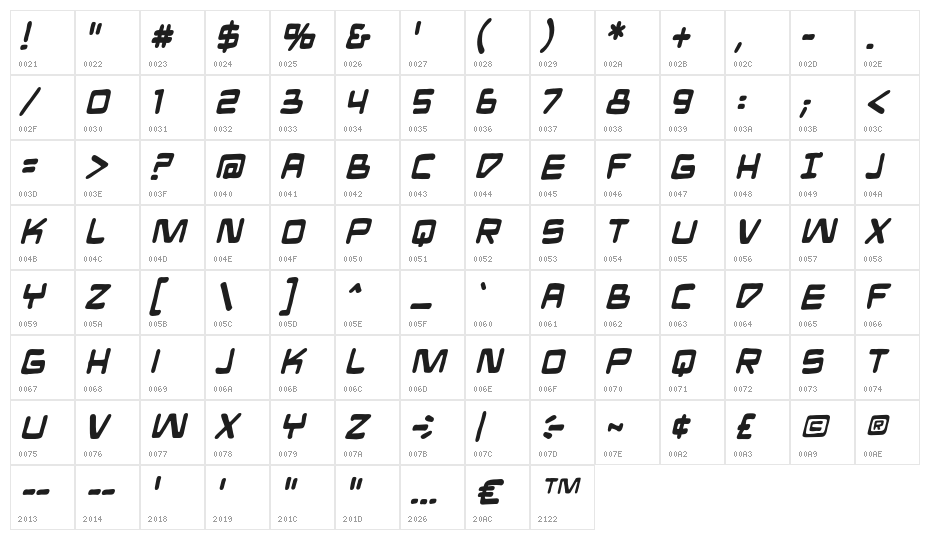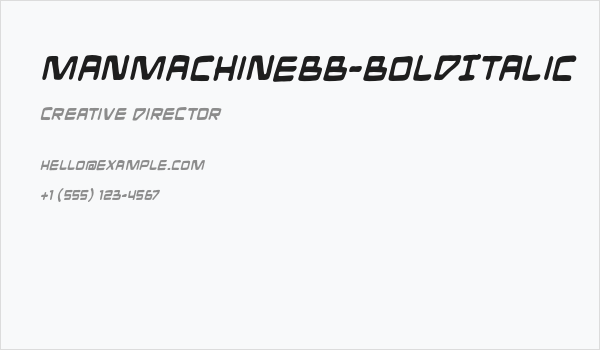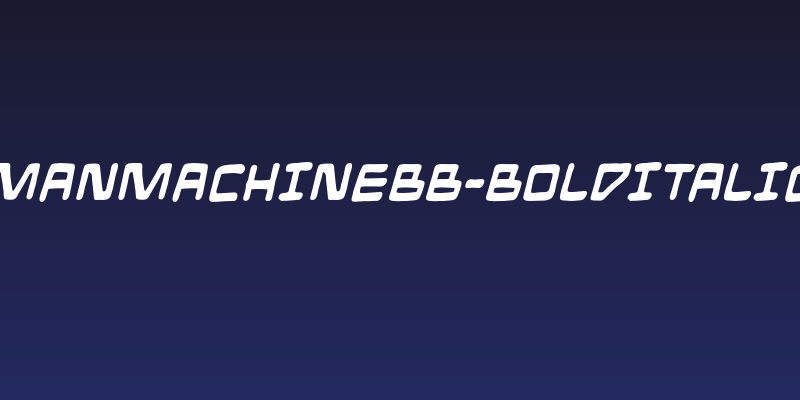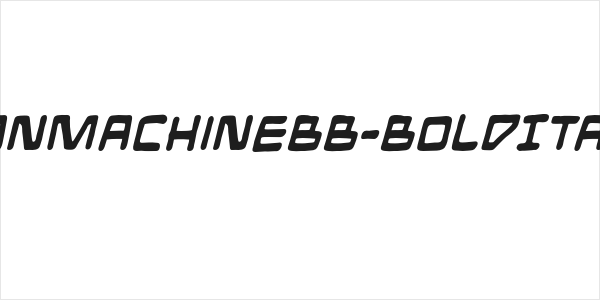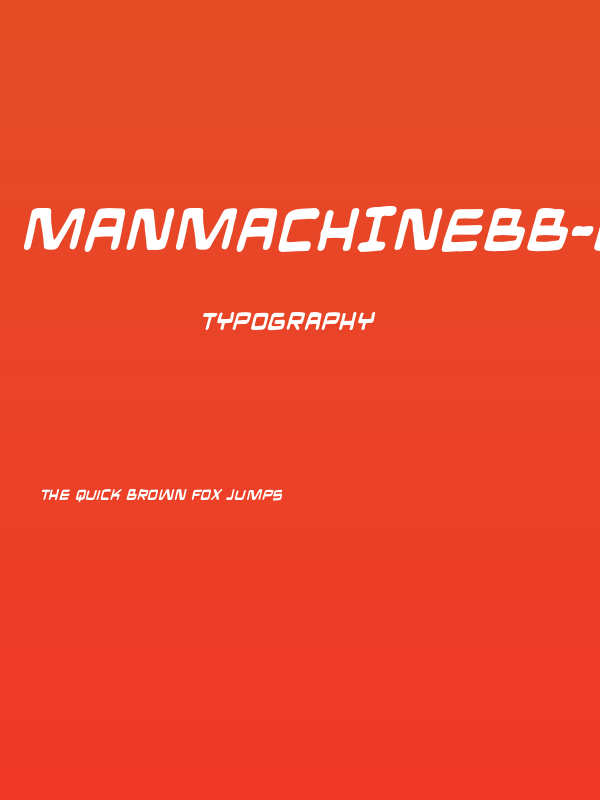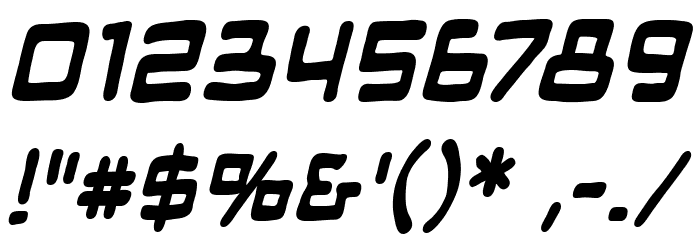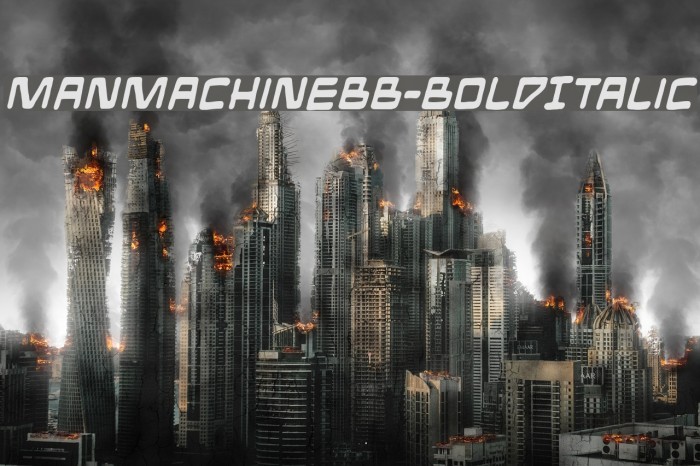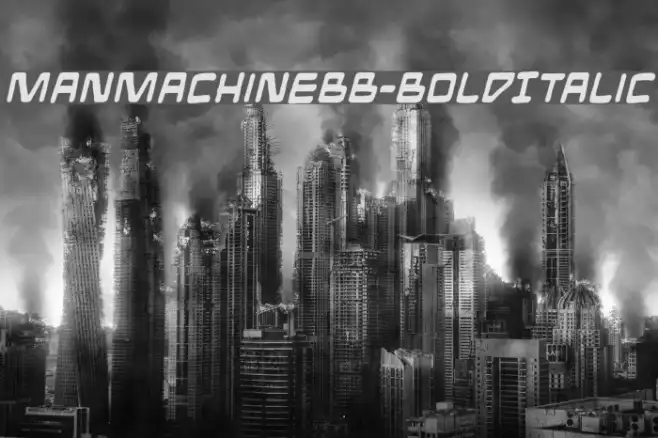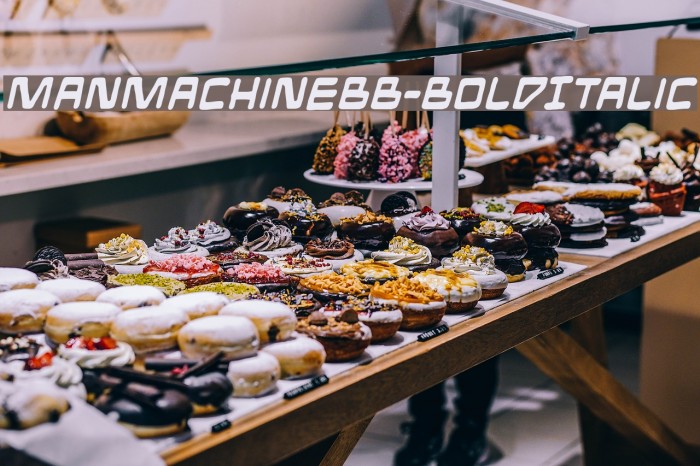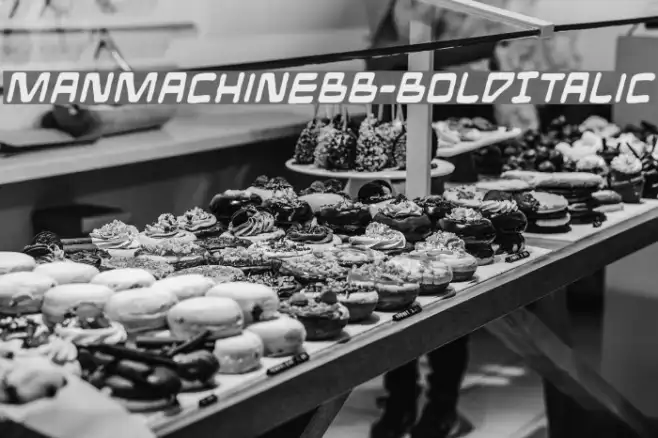
ManMachineBB-BoldItalic Font
ManMachineBB-BoldItalic Description
This font exhibits a bold and italicized style, characterized by its futuristic and mechanical appearance. The letters are slightly slanted, giving a sense of motion and dynamism. The strokes are thick and uniform, contributing to a strong and impactful visual presence. The design is clean and geometric, with rounded edges that soften the overall look. This font is well-suited for projects that require a modern and tech-savvy aesthetic, such as technology branding, video game titles, or sci-fi themed designs. Its boldness ensures readability while the italic slant adds a touch of elegance.
| Proposed Projects | Ideal for technology branding, video game titles, and sci-fi themed designs. |